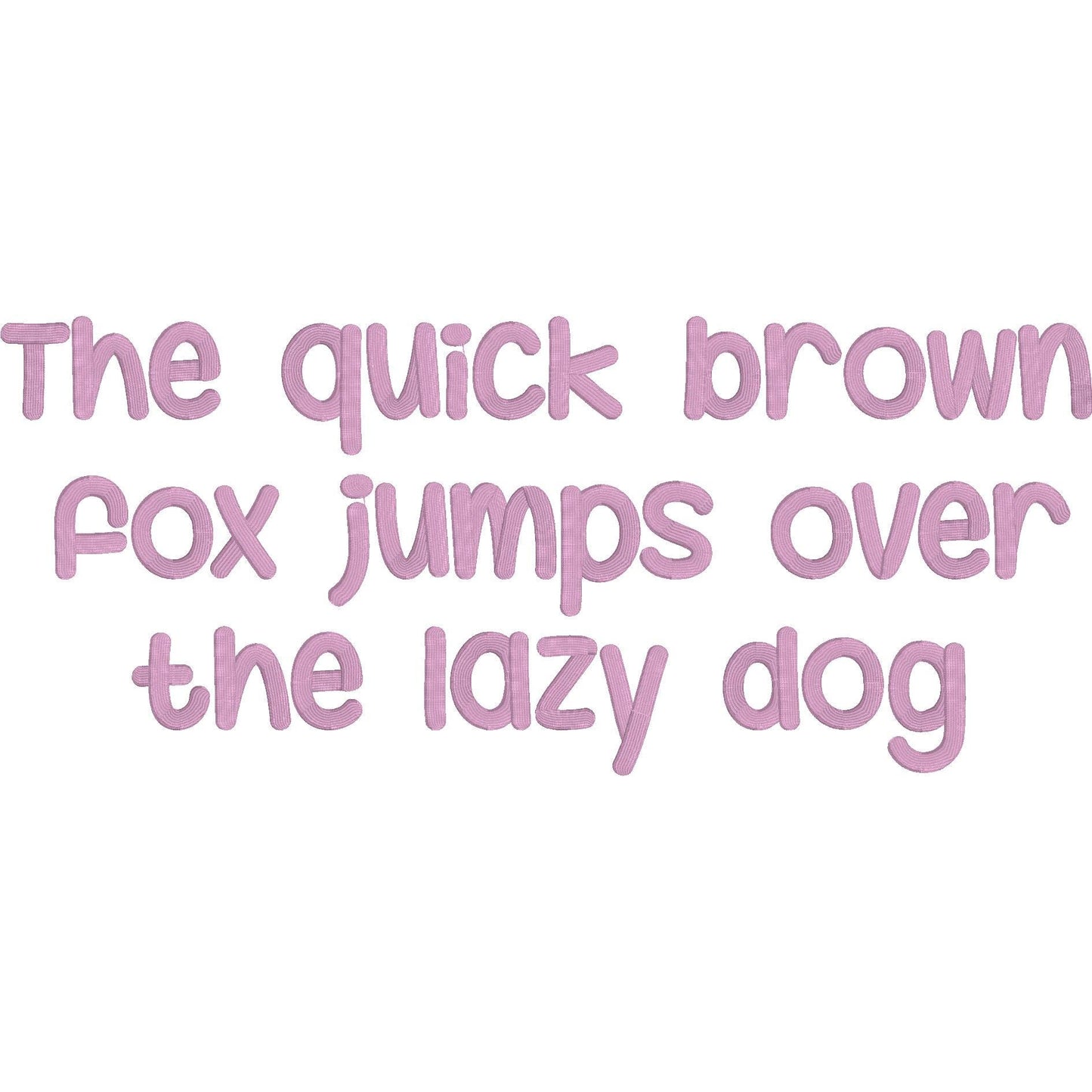
Hug Me 3D Puff Bold Display Embroidery Font | BX Included
Me 3D Puff is a Bold Display machine embroidery font featuring beautiful satin stitch lettering. Perfect for shirts, towels, hats, baby gifts, monograms, and small business embroidery projects.